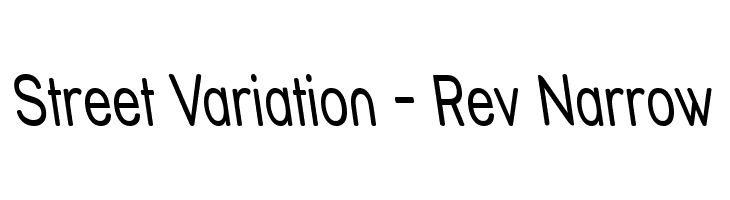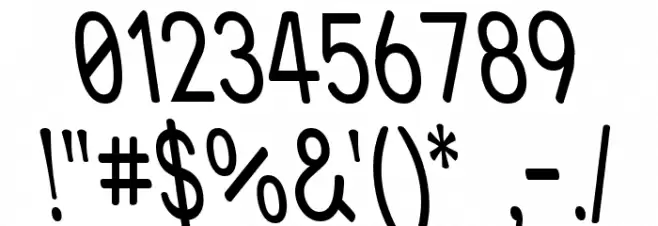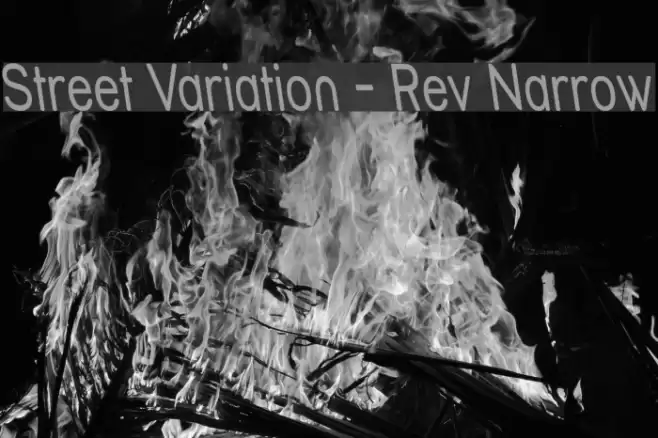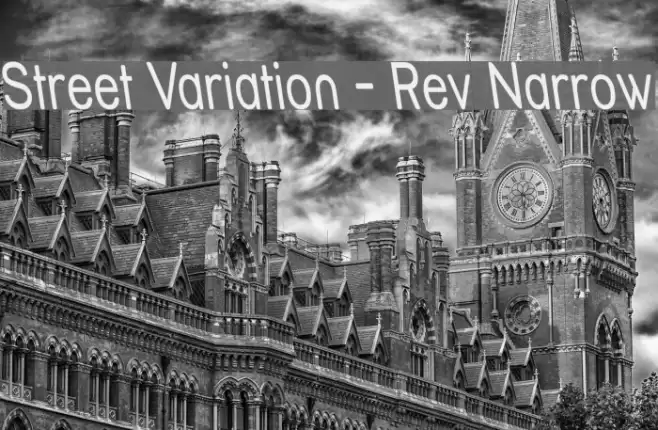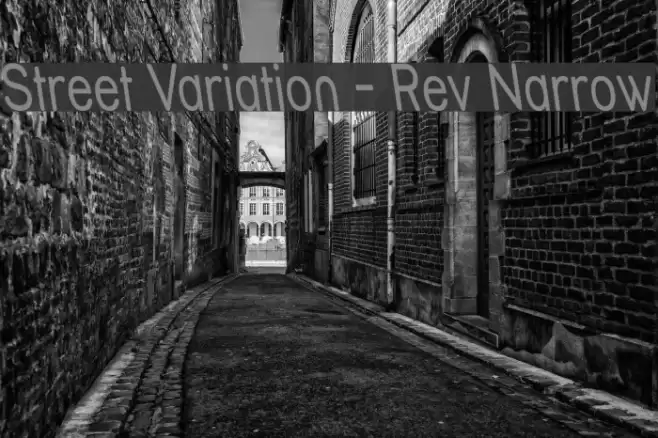
Street Variation - Rev Narrow Font
Street Variation - Rev Narrow Description
This font features a clean and modern sans-serif style with a narrow width, making it ideal for compact spaces. The characters are evenly spaced with a consistent stroke width, providing a uniform appearance. The uppercase and lowercase letters maintain a harmonious balance, while the numerals are clear and legible. Special characters are well-defined, enhancing the font's versatility. Its simplicity and clarity make it suitable for a variety of applications, from signage to digital interfaces.
| Use Case | Headlines, Body text, Logos |
| Proposed Projects | Ideal for signage, digital interfaces, branding, and editorial design. |